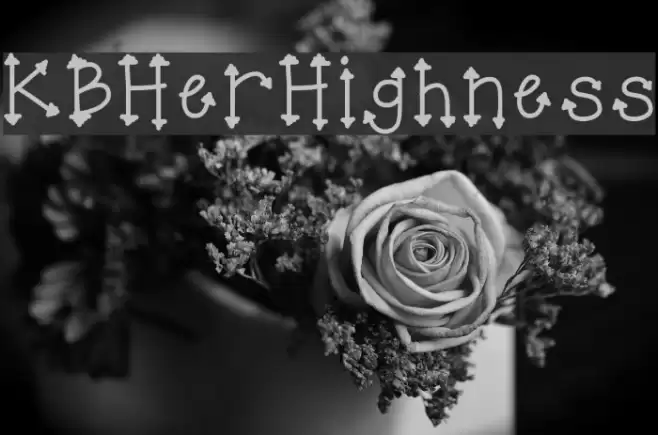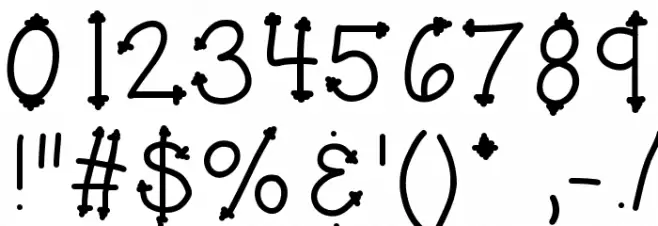
KBHerHighness Font
KBHerHighness Description
This font features a playful and whimsical design, characterized by its unique arrow-like serifs and rounded terminals. The letters are bold and have a consistent stroke width, giving them a strong presence on the page. The uppercase and lowercase letters maintain a uniform style, with the distinctive arrow elements adding a decorative touch. Numbers and special characters follow the same design principles, ensuring a cohesive look across all text elements. The font's quirky style makes it stand out, ideal for projects that require a fun and engaging typeface.
A playful, decorative font with arrow-like serifs and rounded terminals from Uncategorized fonts.
- Proposed Projects: Ideal for children's books, playful branding, party invitations, and creative posters.
- Overall Style: Whimsical, Fun, Decorative